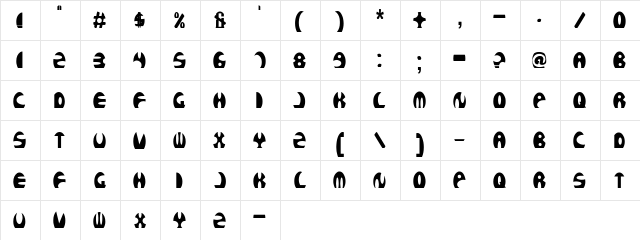
ROCKETBOSS Bold
| Designer | Sipanji 2019 |
Design Context for ROCKETBOSS Typeface
ROCKETBOSS is a composed and adaptable typeface that performs quietly and consistently across a wide range of design contexts. Its bold stroke weight gives it real presence on the page.